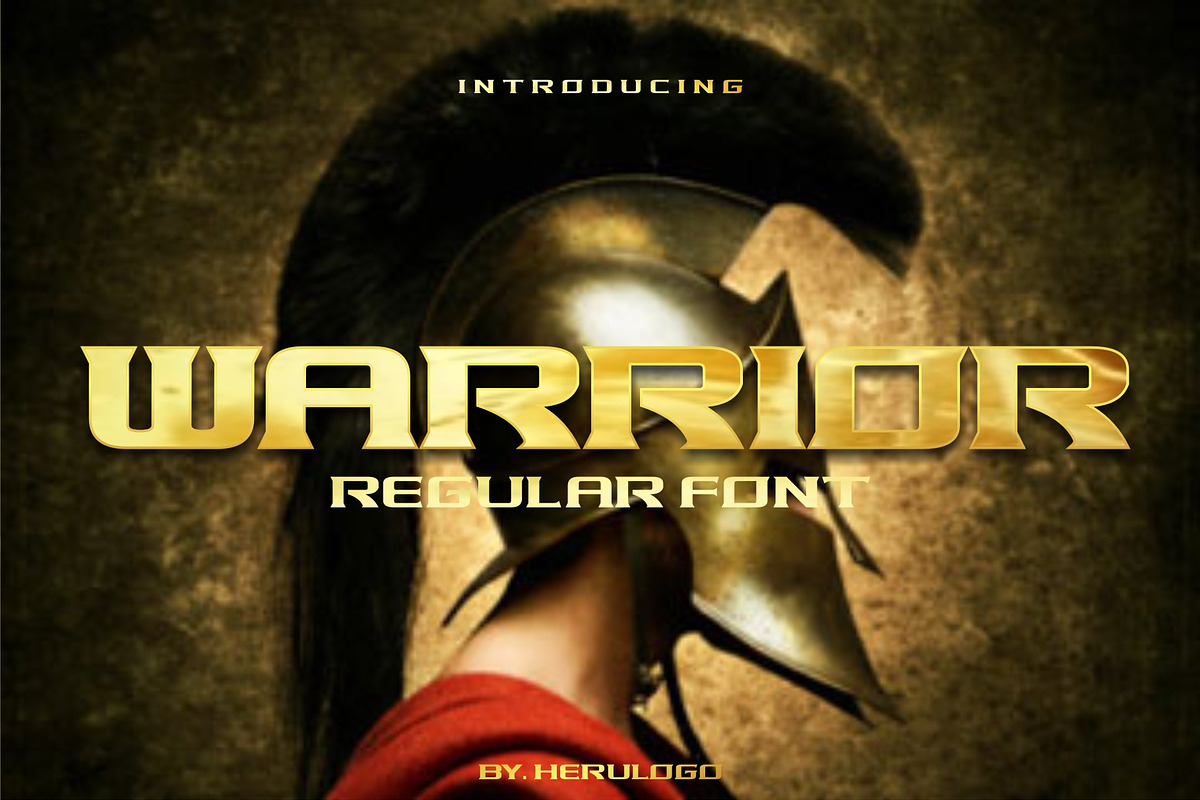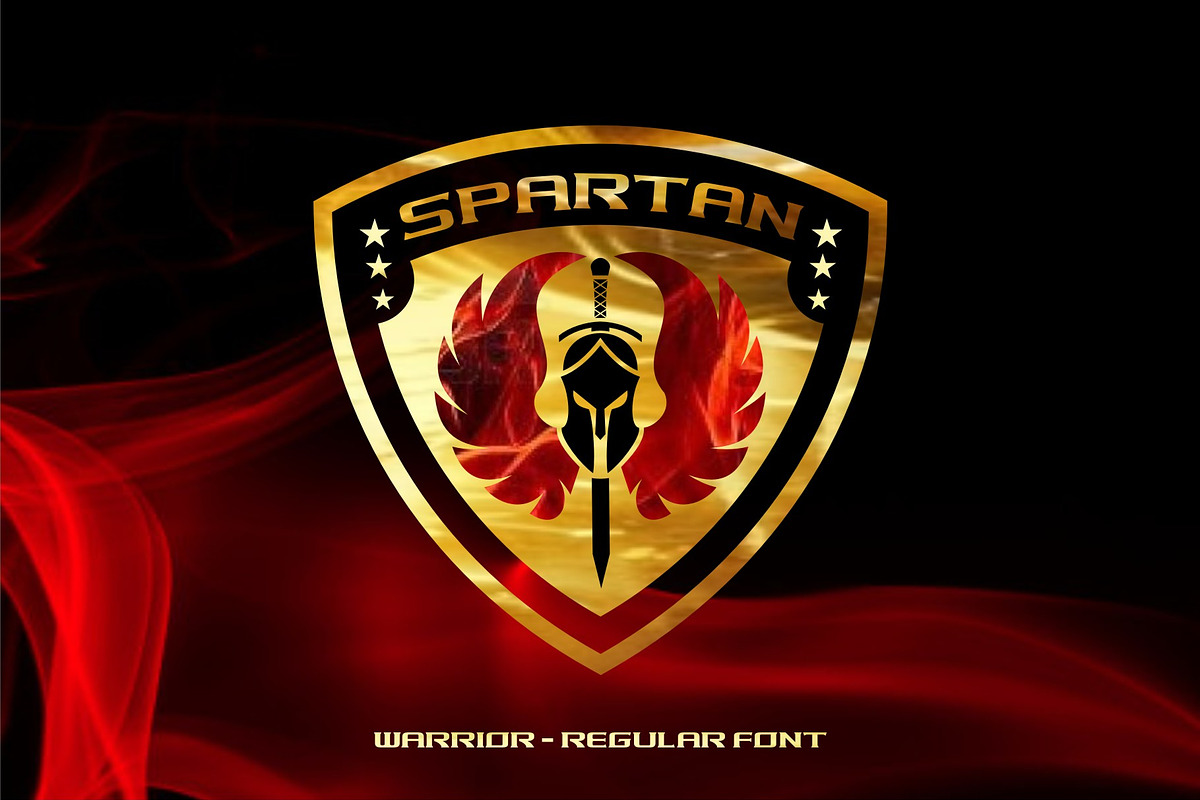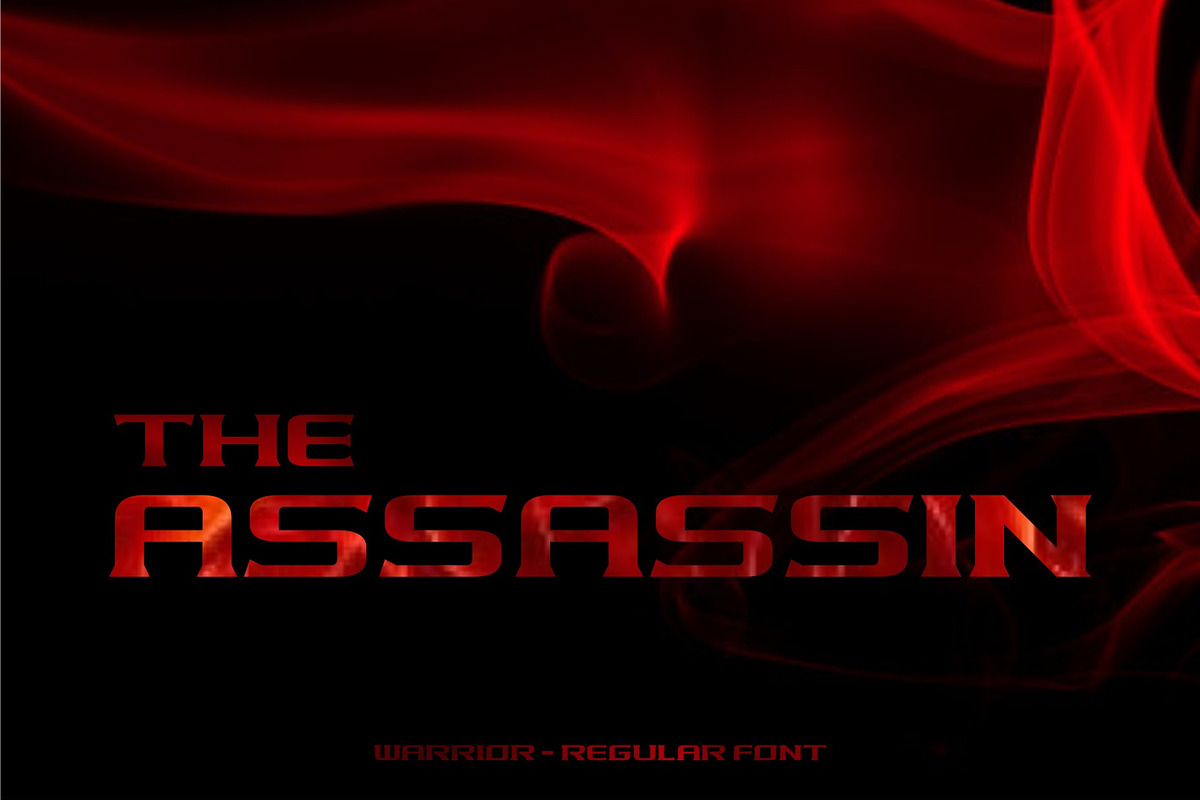
WARRIOR REGULAR FONT
Warrior font, Combination smooth and sharp font, make this font unique and different for display/logo.
WARRIOR REGULAR FONT by herulogo fits naturally into Branding, posters, packaging, typography.